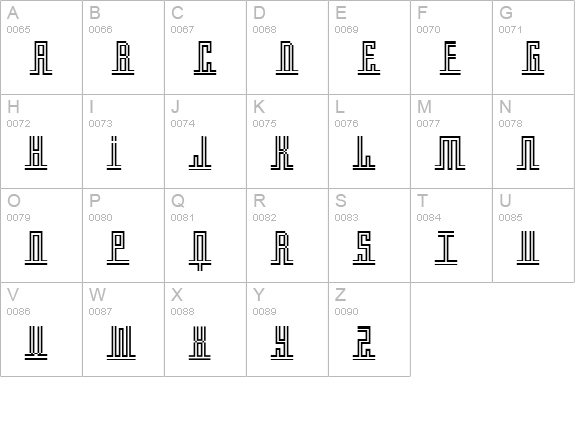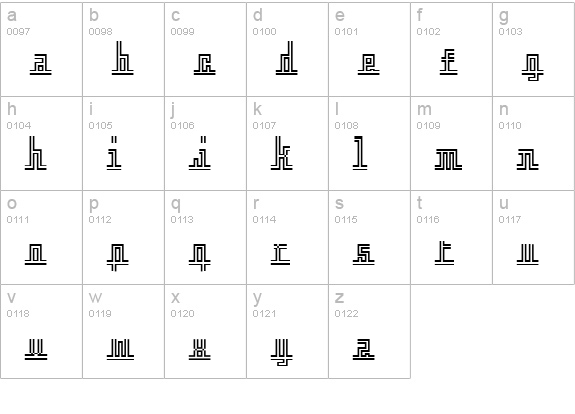
Crossbar Font Details
Crossbar font is a sleek and modern typeface that combines elegance with clarity. Its unique design features clean lines and distinct crossbars that give it a sophisticated and contemporary look. Whether used for headings, logos, or body text, Crossbar font exudes a sense of professionalism and style. What's even better is that Crossbar font is available for free download at FontsMarket.com. This means you can easily add this versatile font to your design projects without any cost. Don't miss out on the opportunity to enhance your designs with the sleek and stylish Crossbar font today!